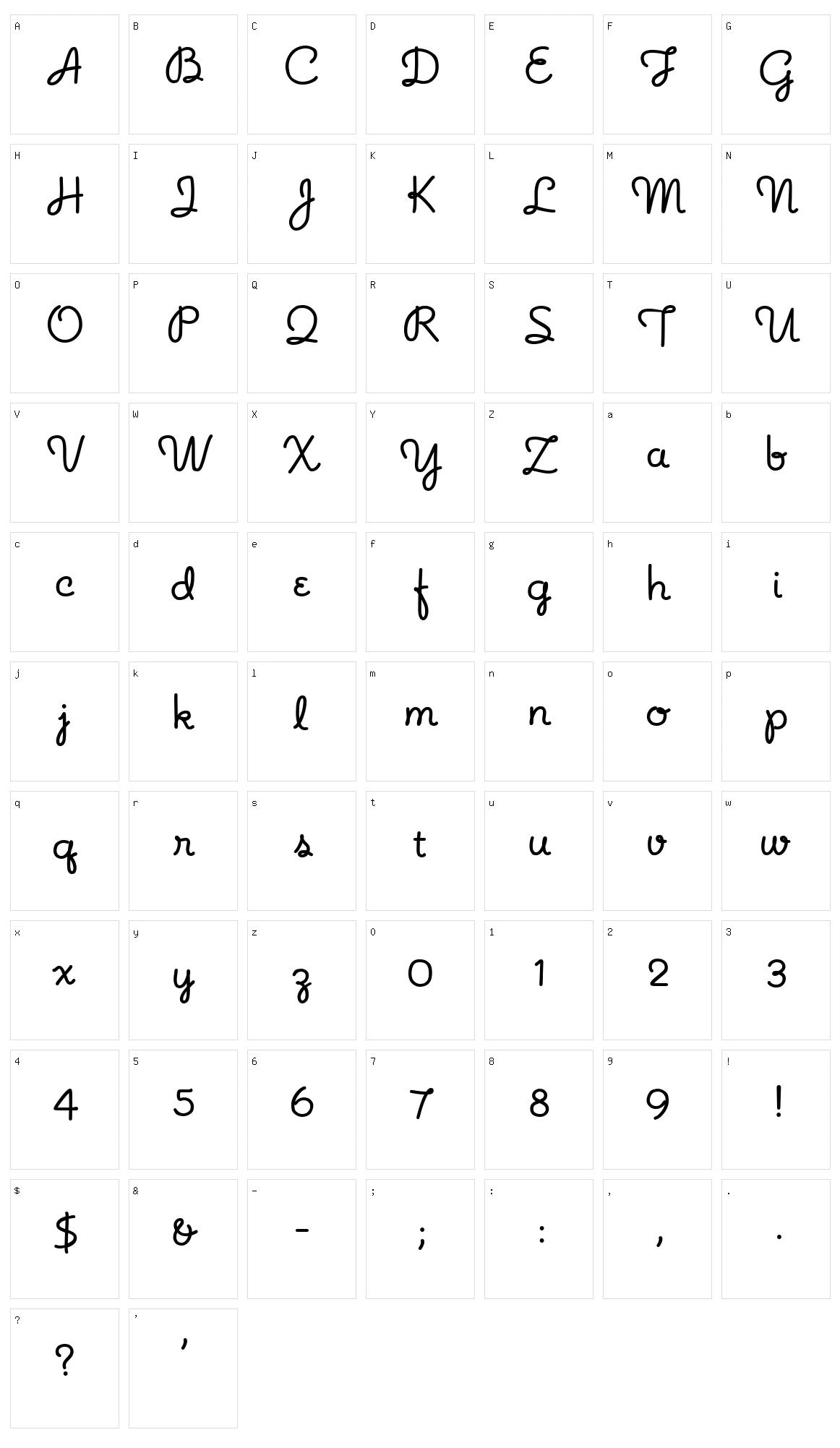
NOODLE SCRIPT is a revival of sorts. I saw a sample in a book printed in the 1930's. The original typeface was called "Romany," and I've never seen its like in digital font format--and I've pored over a lot of recent (last ten years) specimens and font catalogs. So as an excercise, I thought I'd try to produce something similar. The result is admittedly a lot less artful than the original, yet, despite the warts, this font has some charm. Maybe.